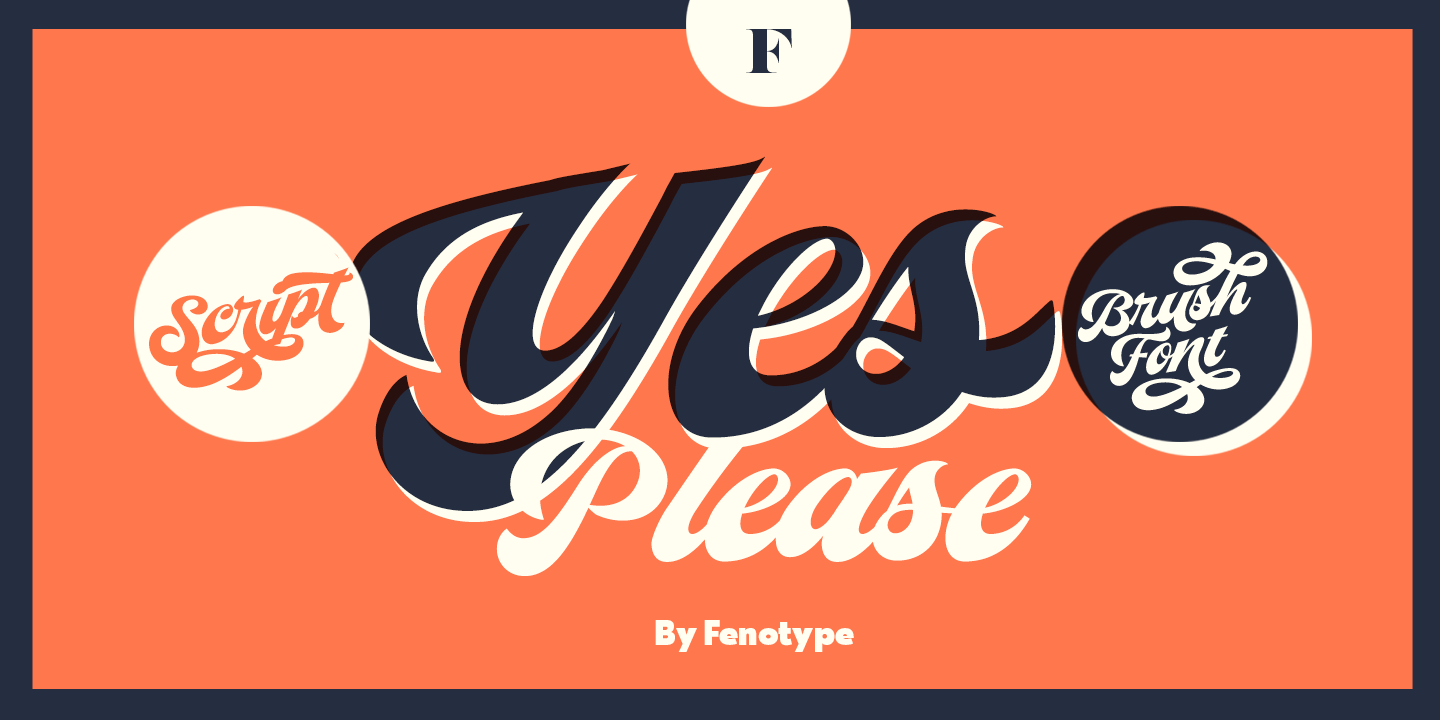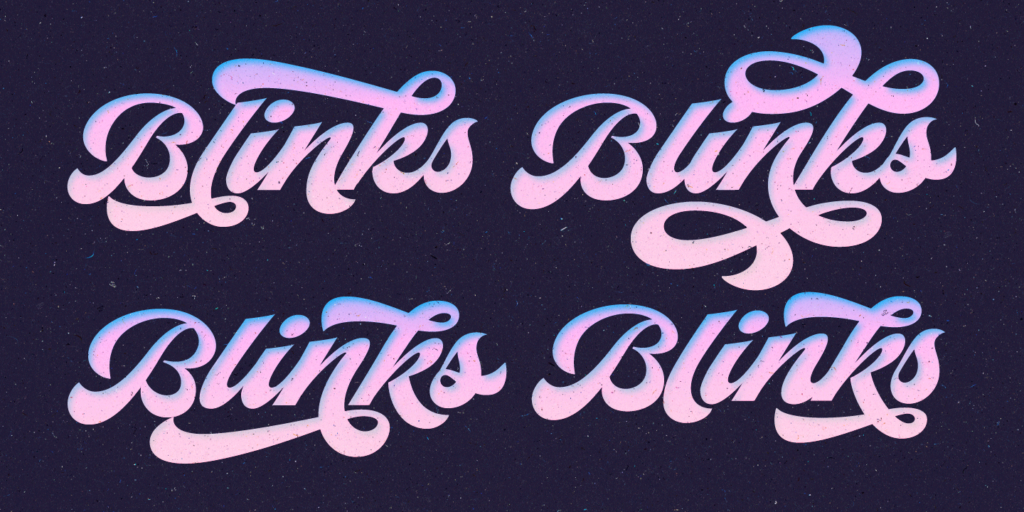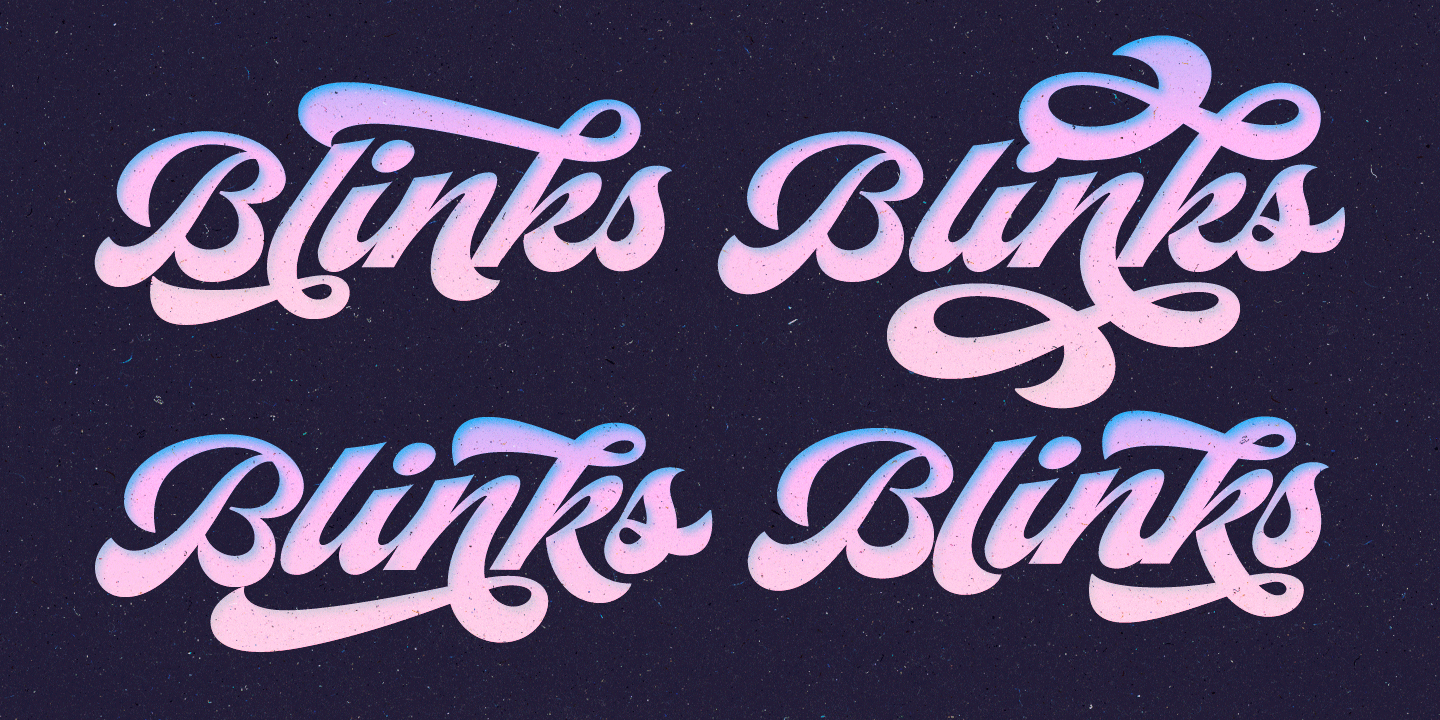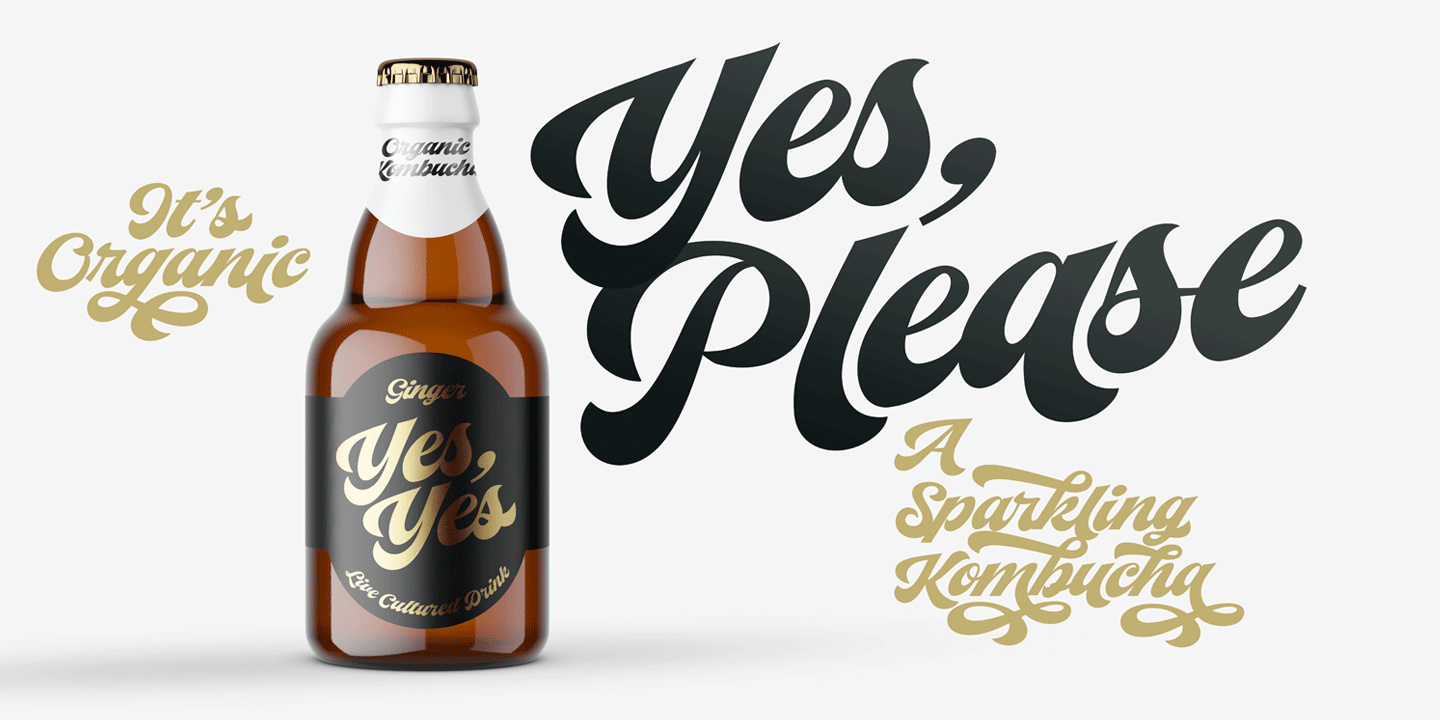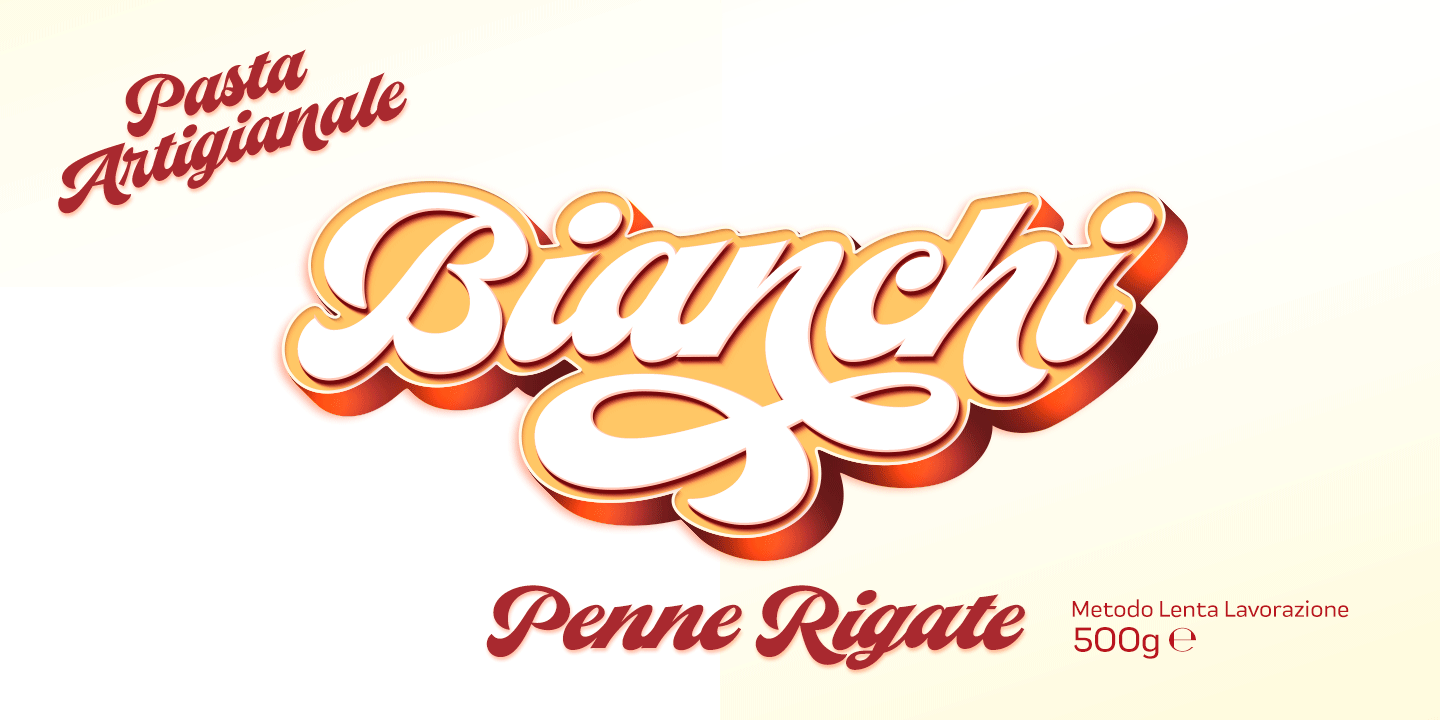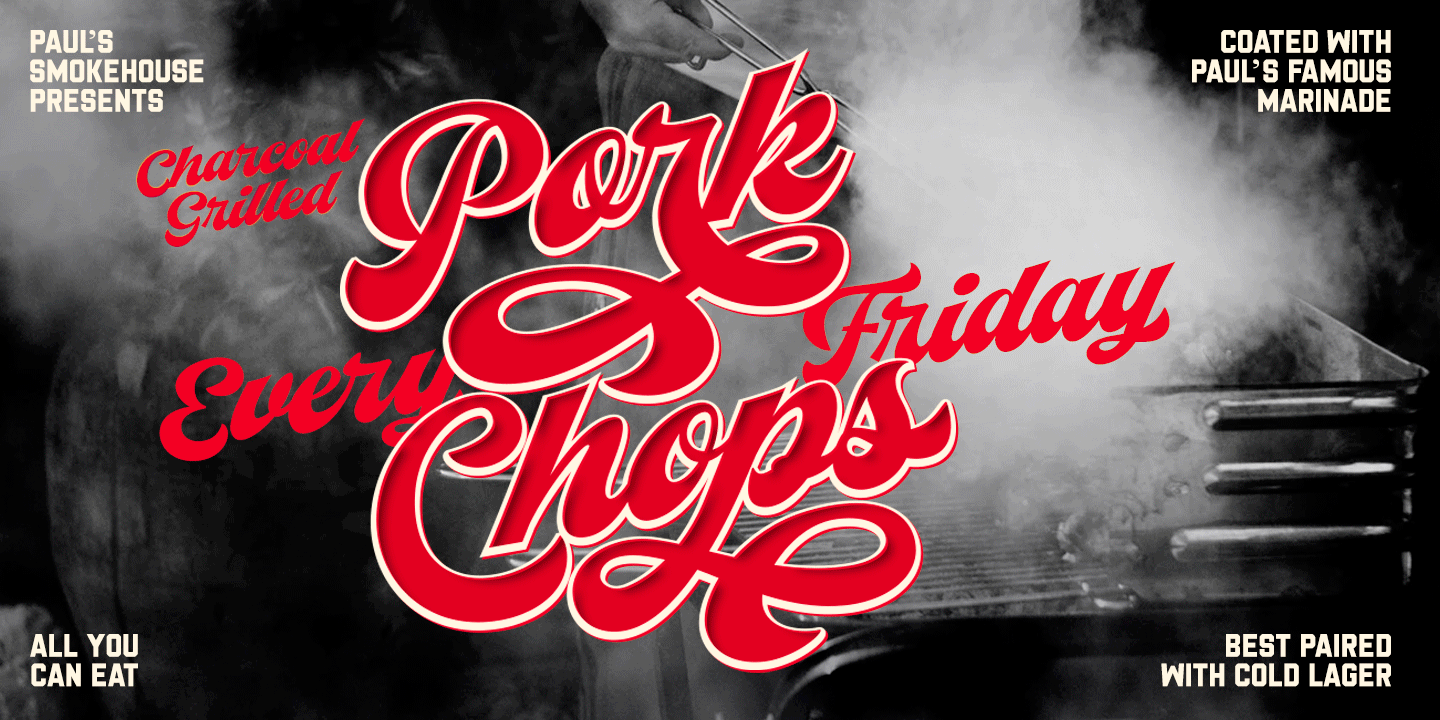
About Yes Script
Yes Script says Yes! Yes Script is a bold connected brush script inspired by the typography of the late 60s and 70s. Yes Script is not an anachronistic vintage type -due to it\’s clean features and straight edges it\’s more of a contemporary design suitable…